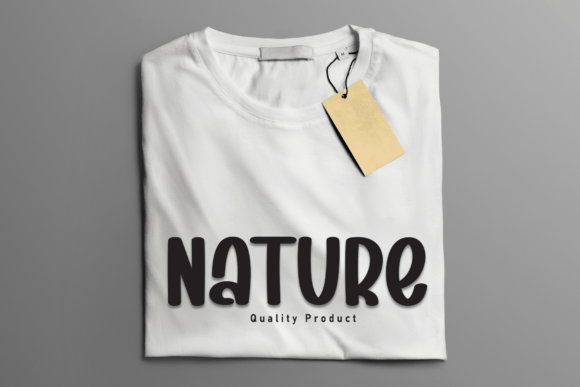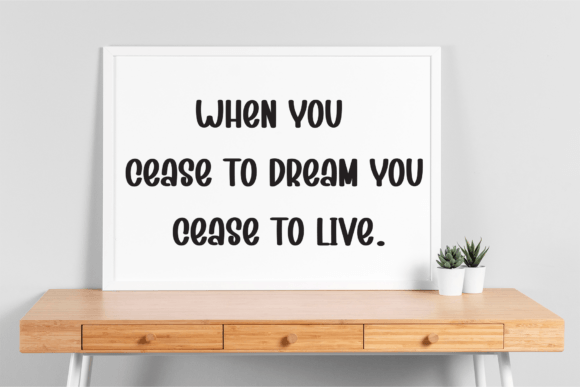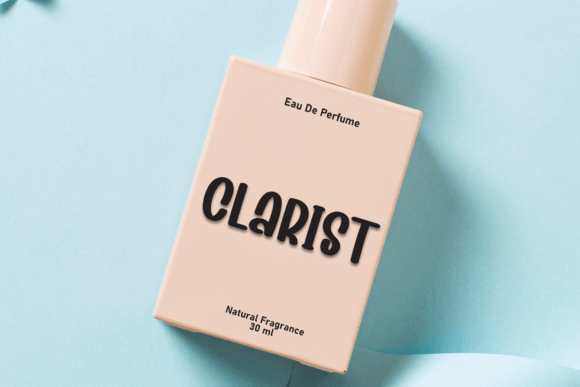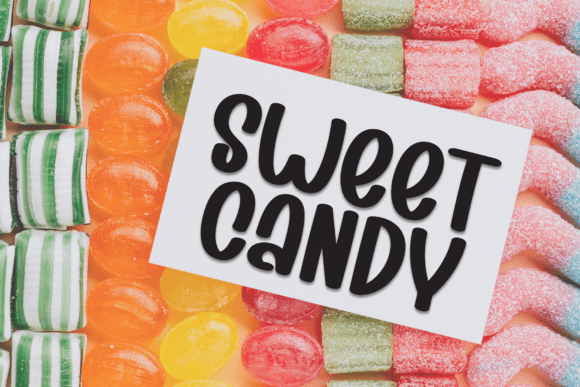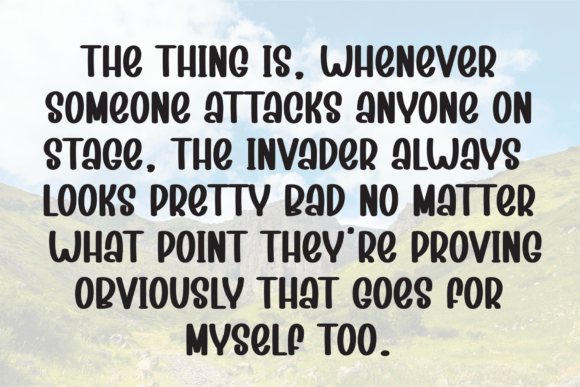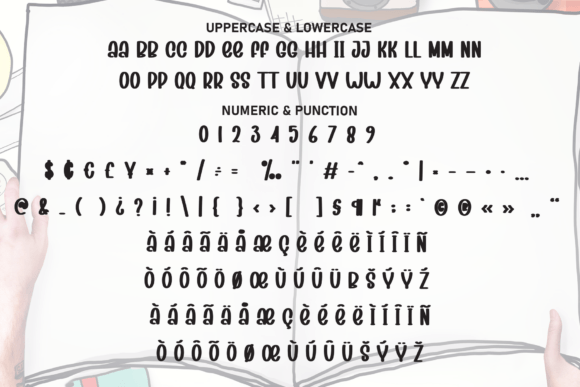
Introducing Comic Stories Font: Unleash Your Creativity with a Playful Brush Display Font
Are you a designer, crafter, or artist looking for a font that can add a lively and creative touch to your projects? Look no further than Comic Stories Font, a fun and playful brush display font that’s perfect for making a statement. With its bold, hand-drawn letters that look like they’re straight out of a comic book, Comic Stories Font is sure to bring a smile to your audience’s faces and make your work stand out.
What is Comic Stories Font?
Comic Stories Font is a unique and eye-catching font that’s designed to resemble the bold, playful lettering often found in comic books. Its hand-drawn letters are full of character and personality, making it perfect for adding a touch of whimsy and fun to any project. Whether you’re working on a poster, title, cartoon, or any other creative endeavor, Comic Stories Font is sure to bring a burst of energy and excitement to your design.
Key Features of Comic Stories Font
- Bold and Playful Letters: Comic Stories Font features bold, hand-drawn letters that are full of personality and character.
- Comic Book-Inspired Design: The font’s design is inspired by the classic comic books, making it perfect for creating eye-catching posters, titles, and cartoons.
- Hand-Drawn Look: The font’s hand-drawn look gives it a unique and organic feel that’s perfect for adding a touch of whimsy to your designs.
- Perfect for Creative Projects: Comic Stories Font is perfect for designers, crafters, and artists who want to add a lively and creative touch to their projects.
Uses for Comic Stories Font
Comic Stories Font is a versatile font that can be used for a wide range of creative projects, including:
- Posters and Flyers: Add a bold and playful touch to your posters and flyers with Comic Stories Font.
- Cartoon and Comic Book Art: Use Comic Stories Font to create eye-catching titles and captions for your cartoons and comic book art.
- Titles and Headings: Use Comic Stories Font to add a touch of personality and whimsy to your titles and headings.
- Crafting and Scrapbooking: Comic Stories Font is perfect for crafters and scrapbookers who want to add a bold and playful touch to their projects.
Why Choose Comic Stories Font?
There are many fonts to choose from, but Comic Stories Font stands out for its unique and playful design. Here are just a few reasons why you should choose Comic Stories Font for your next project:
- Unique and Eye-Catching Design: Comic Stories Font has a unique and eye-catching design that’s sure to make your project stand out.
- Easy to Read: Despite its bold and playful design, Comic Stories Font is easy to read and understand.
- Versatile: Comic Stories Font can be used for a wide range of creative projects, from posters and flyers to cartoons and comic book art.
- Fun and Playful: Comic Stories Font is the perfect font for adding a touch of fun and playfulness to your designs.
Tips for Using Comic Stories Font
Here are a few tips for getting the most out of Comic Stories Font:
- Use it Sparingly: Comic Stories Font is a bold and playful font, so use it sparingly to avoid overwhelming your design.
- Pair it with Other Fonts: Pair Comic Stories Font with other fonts to create a unique and eye-catching design.
- Have Fun: Most importantly, have fun with Comic Stories Font! It’s a playful font that’s meant to bring a smile to your audience’s faces.
In conclusion, Comic Stories Font is a fun and playful brush display font that’s perfect for designers, crafters, and artists who want to add a lively and creative touch to their projects. With its bold, hand-drawn letters and comic book-inspired design, Comic Stories Font is sure to make a statement and bring a burst of energy and excitement to your design. So why wait? Download Comic Stories Font today and start creating!